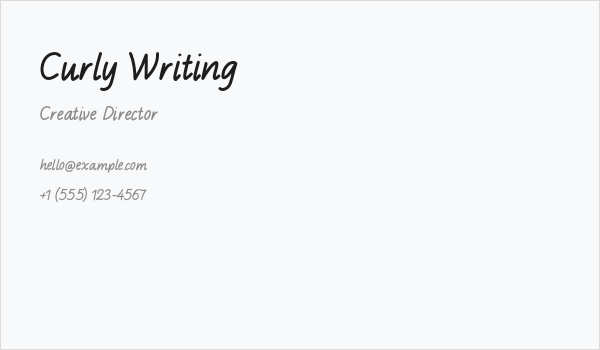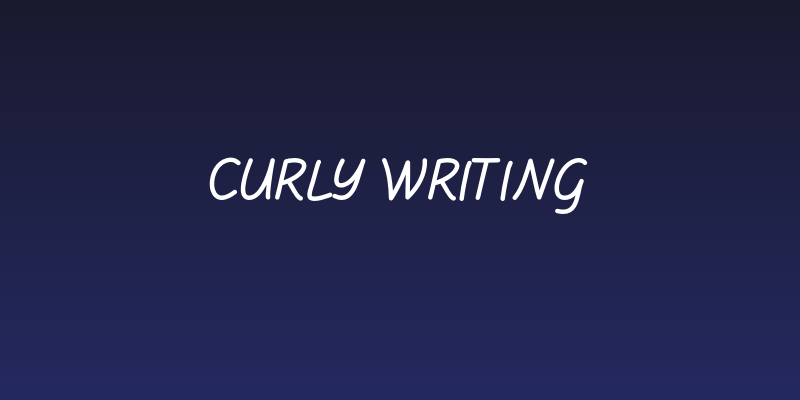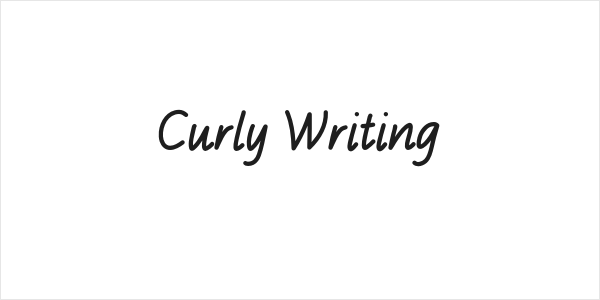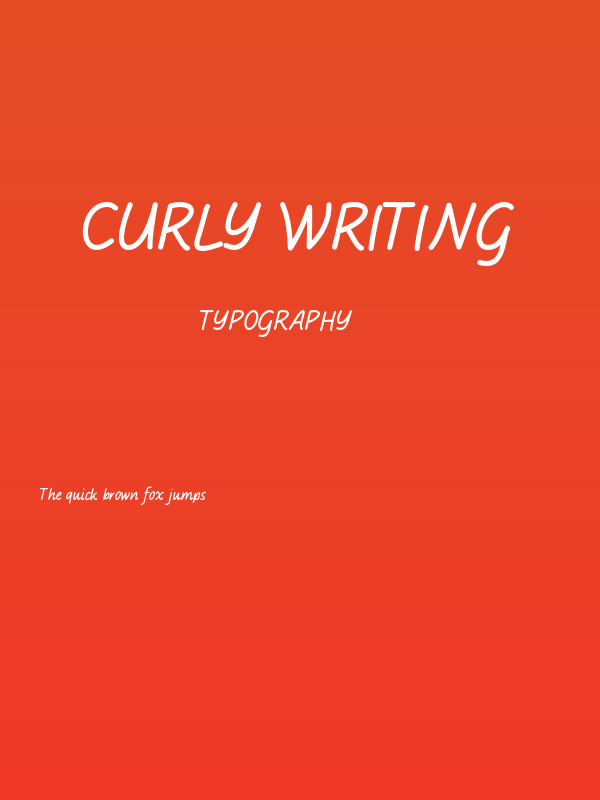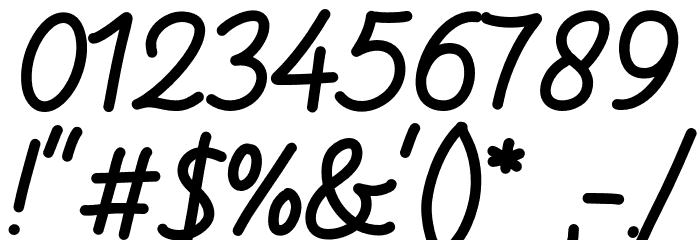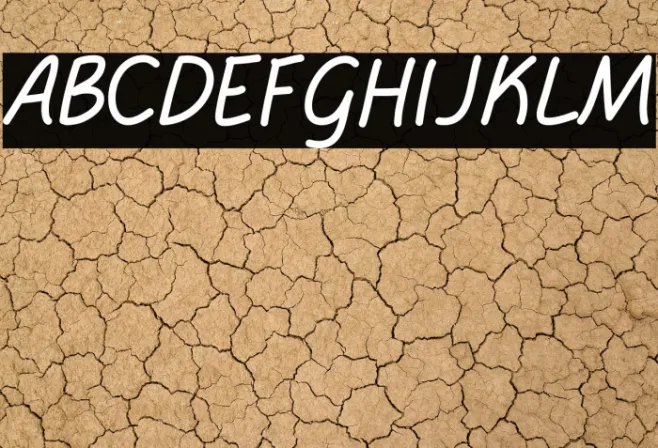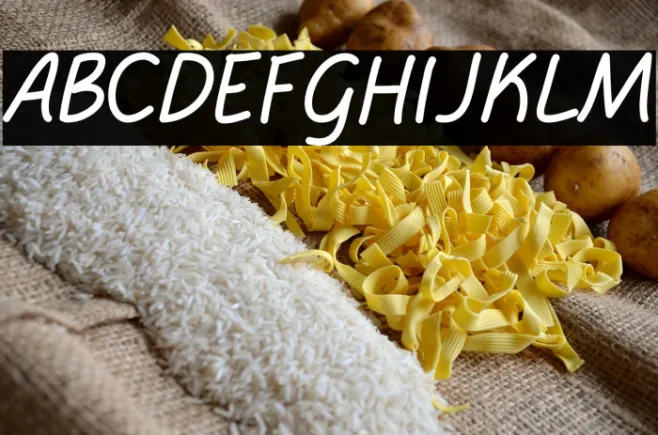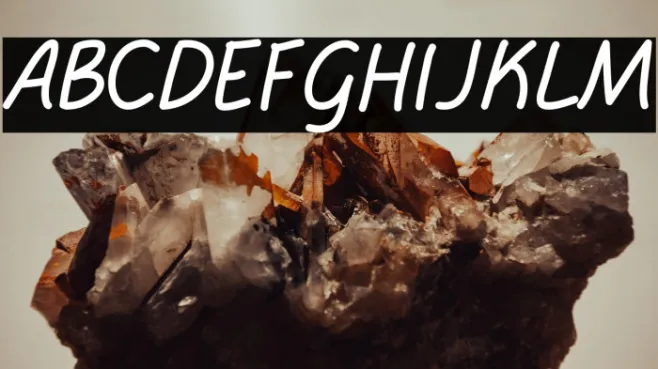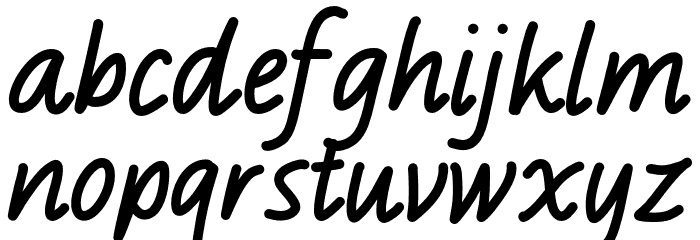
Curly Writing Font
Curly Writing Description
This font features a playful and dynamic script style, characterized by its fluid and connected strokes that mimic natural handwriting. The letters are slightly slanted, giving a sense of movement and energy. The uppercase and lowercase letters maintain a consistent style, with rounded edges and smooth curves. The numerals and special characters follow the same design principles, ensuring a cohesive look across all elements. This font is ideal for projects that require a personal touch, such as invitations, greeting cards, or branding materials that aim to convey friendliness and approachability.
| Overall Style | Playful, Handwritten |
| Proposed Projects | Ideal for invitations, greeting cards, personal branding, and any project needing a friendly, approachable touch. |